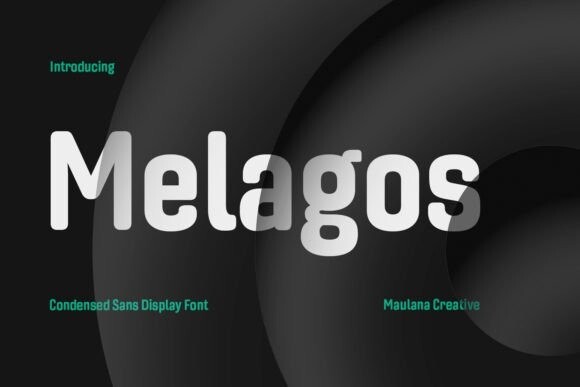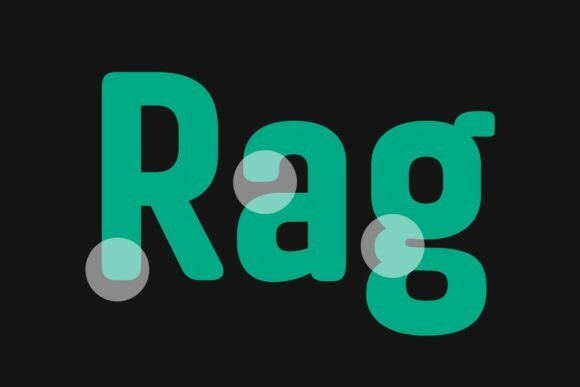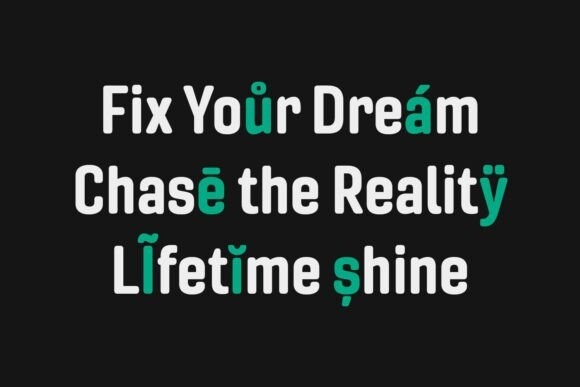
Melagos Font
Melagos Font is a condensed Display font with a bold stroke and fun characters. It adds an extra touch of creativity to your projects. This font is ideal for logo designs, social media, movie and book titles.